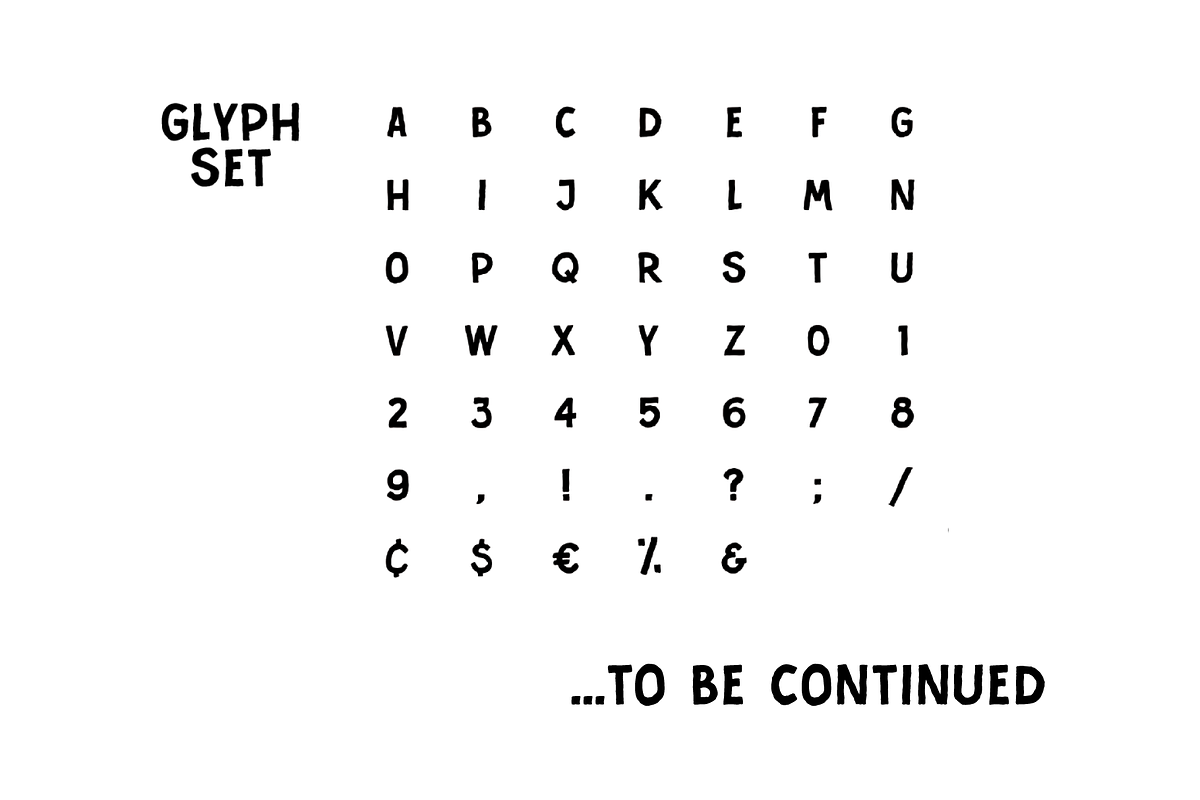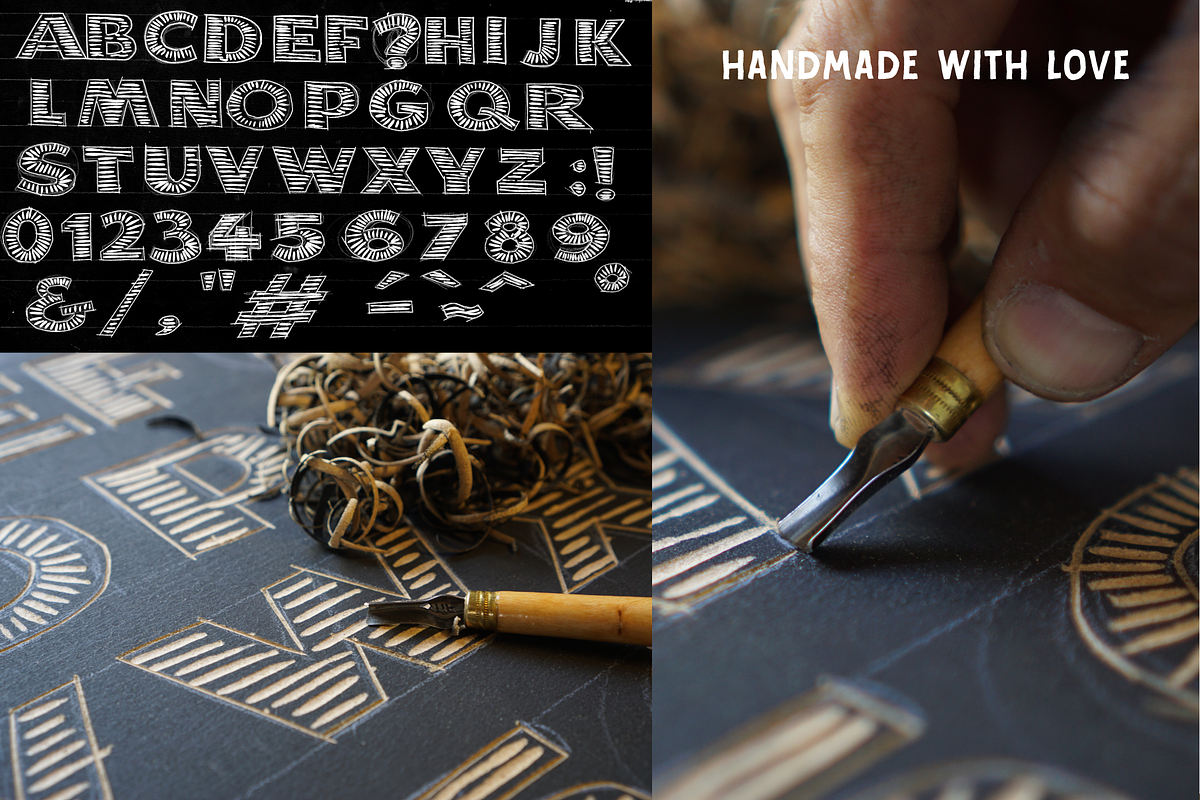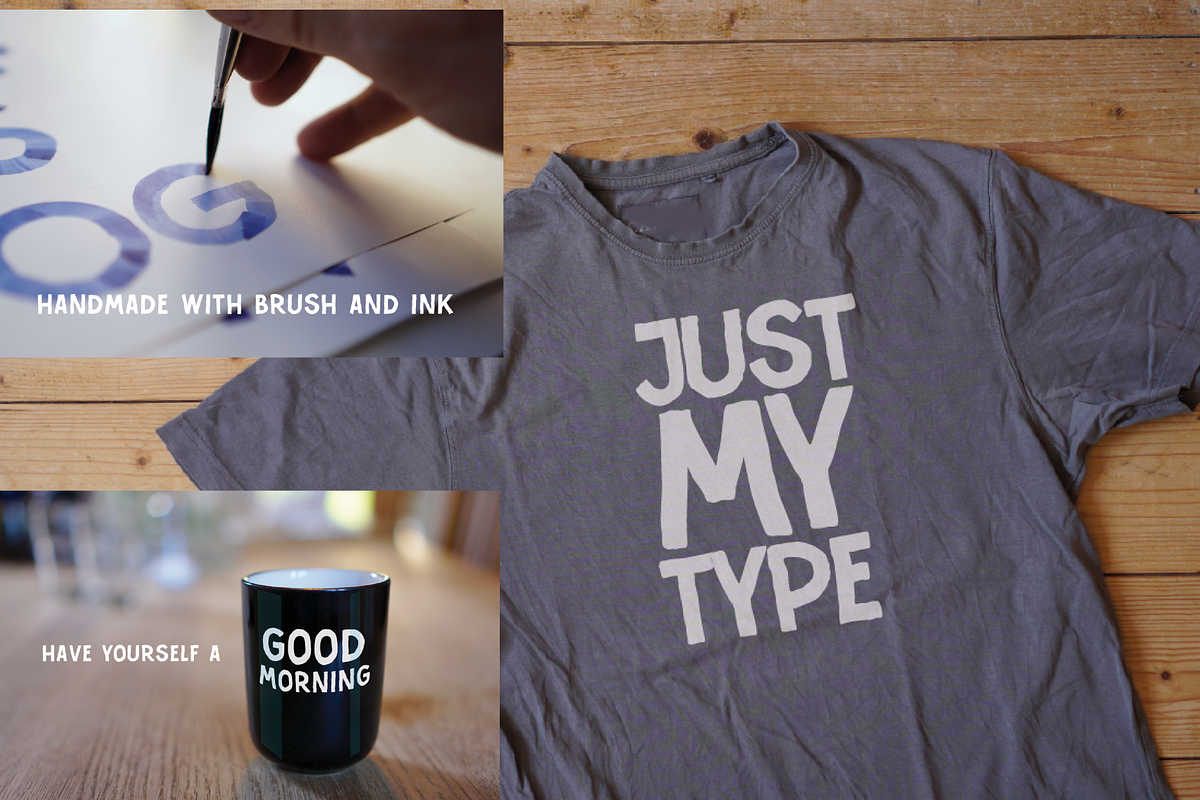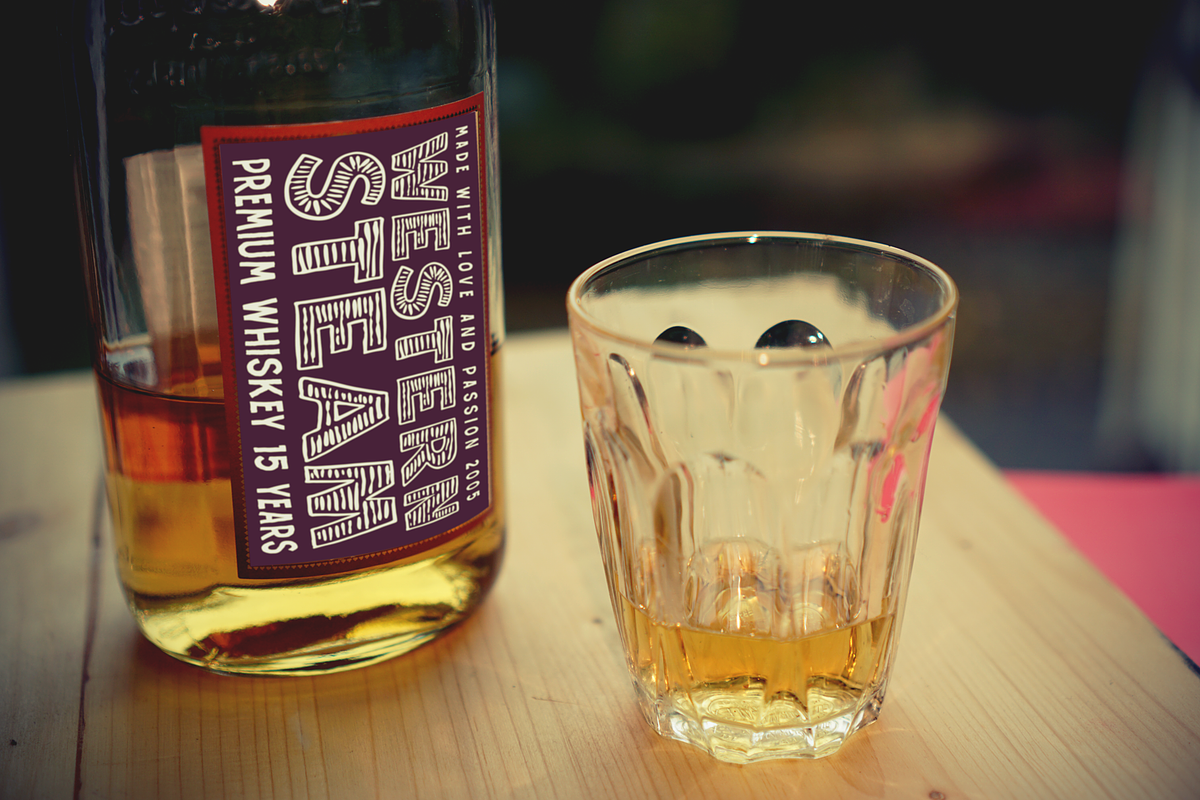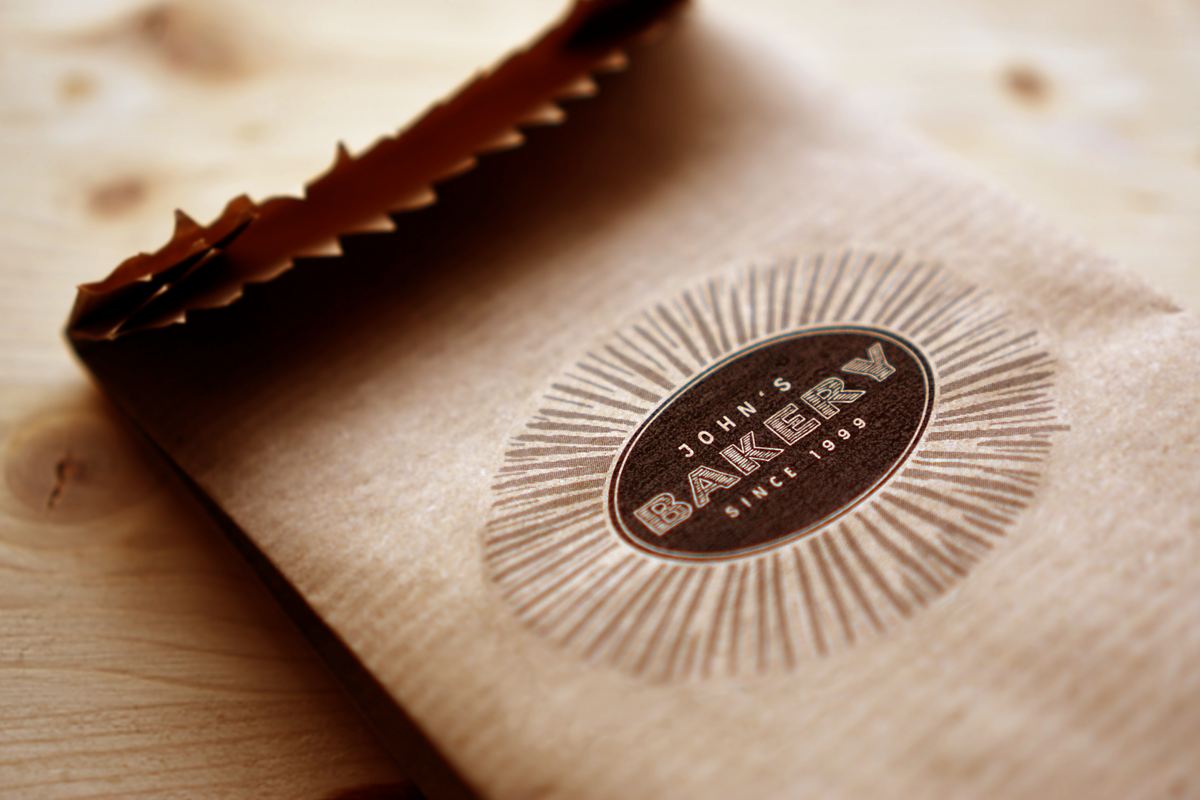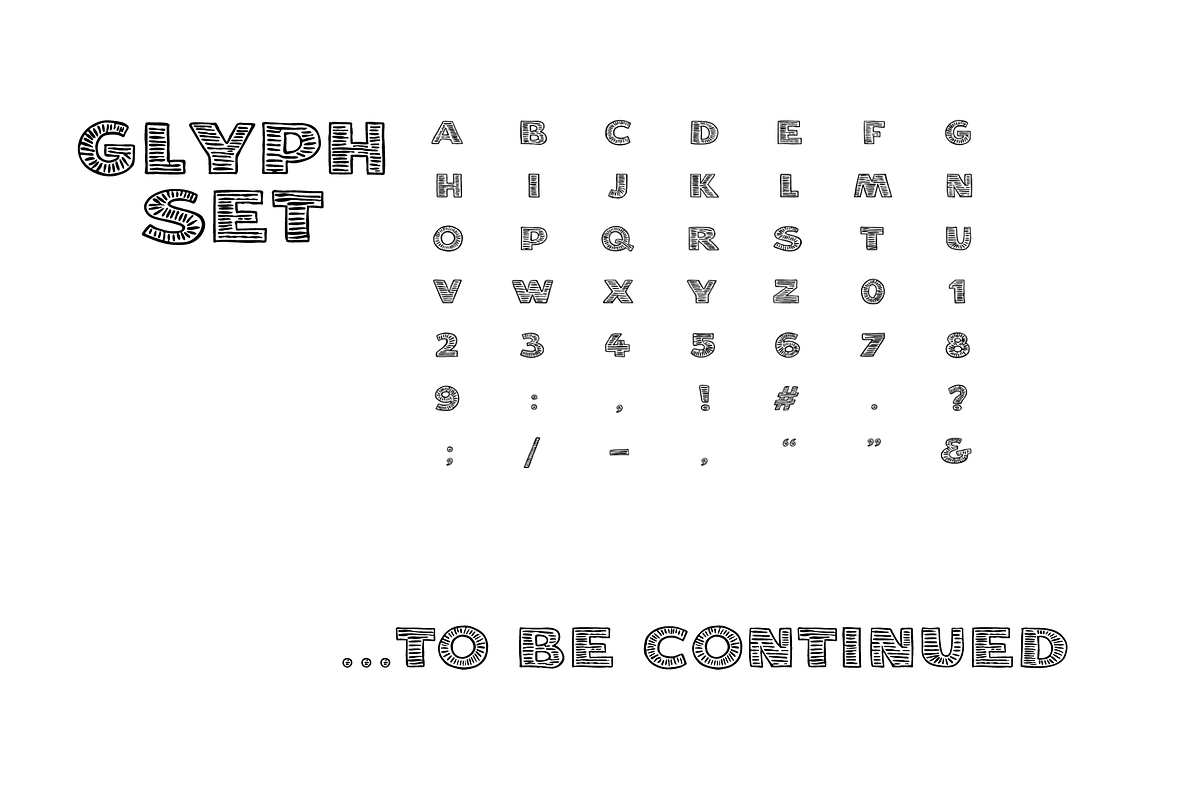
Cutton & Miller Font Duo
I took a longer break from fontdesign, doing more artistic stuff, like painting, drawing and ... woodcutting. So here I give you my first handmade woodcut font CUTTON in a package with a signwriter's brush font MILLER. I think they can be good friends in the future. Extra: 4 woodcut textures in 3 file formats for Illustrator, Affinity Designer or other vector application. Perfect for background design.
These OTF Fonts are limited in their glyph sets, so only capital letters, numbers and some basic punctuations.